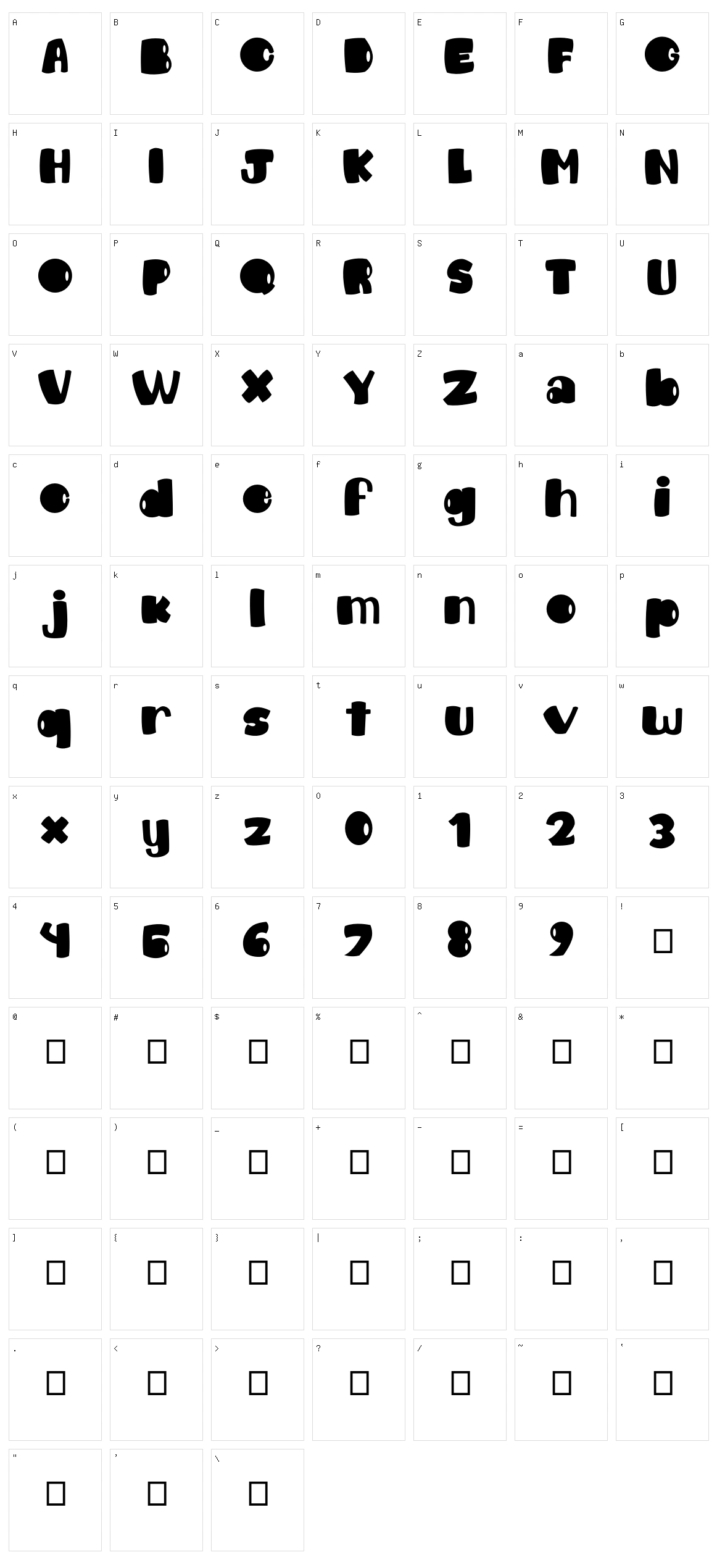
The free font Chico is carefully designed by YolandaBomfim, showcasing a thoughtful balance of creativity and usability and falls under the Cartoon font style. When you download the ZIP file, it contains only 8.13 KB of font files, making it lightweight and quick to download. Please review the license details below to understand permitted usage and distribution rights. If license information is not available, we recommend using this font for personal projects only or contacting the author directly for commercial usage permissions.